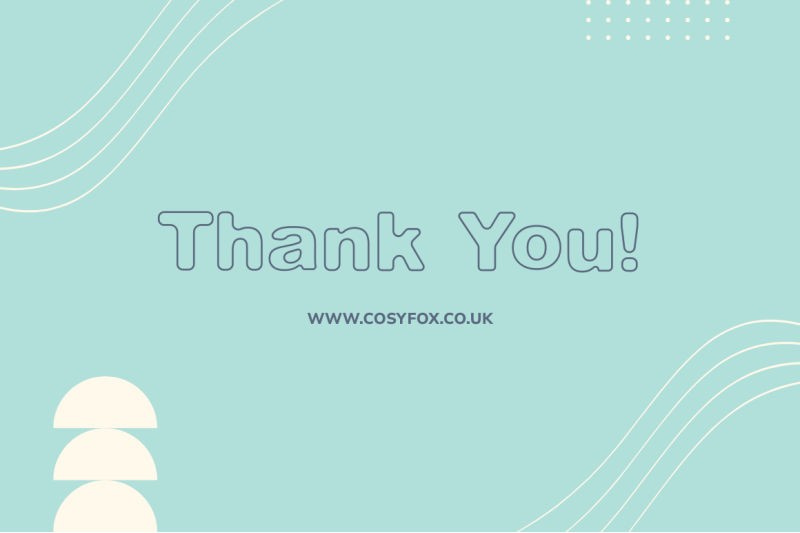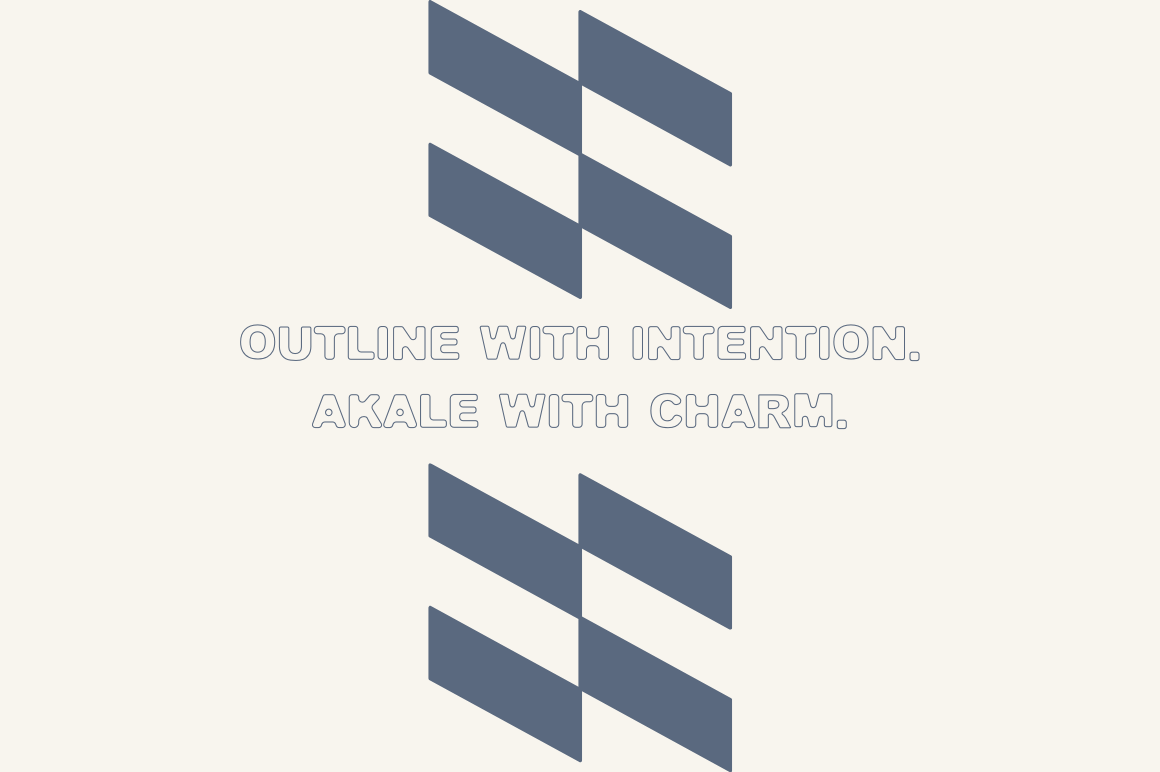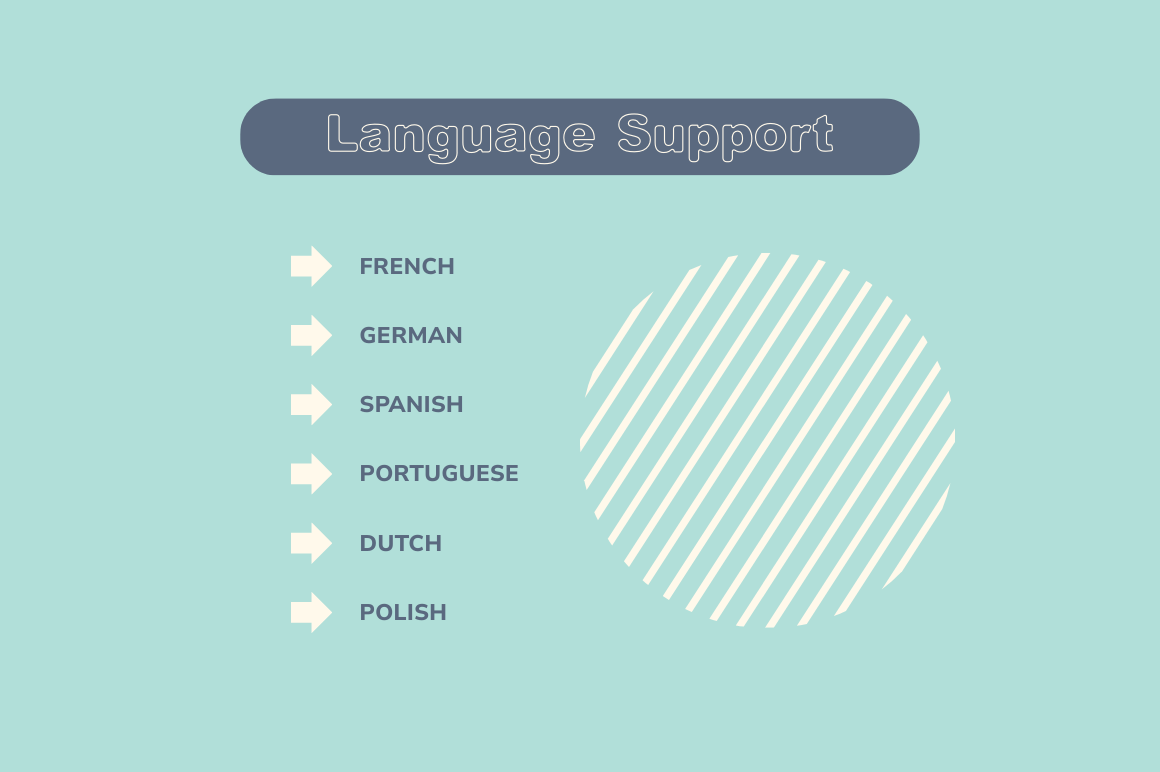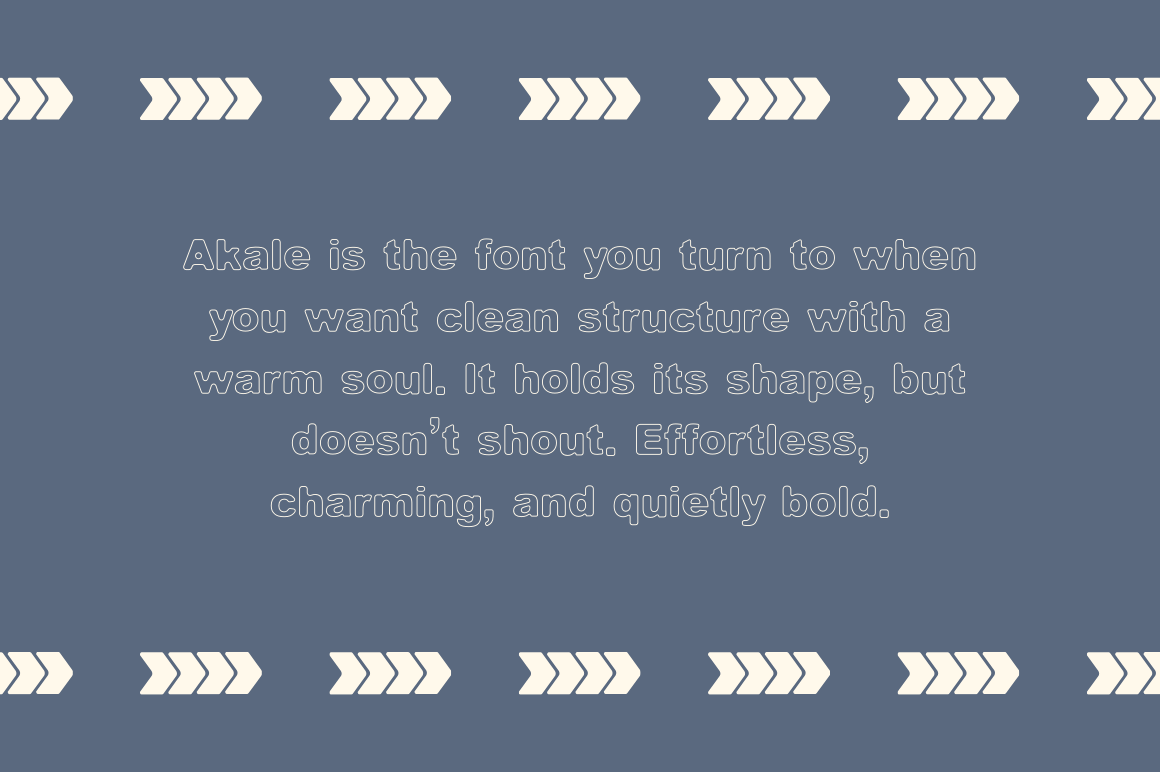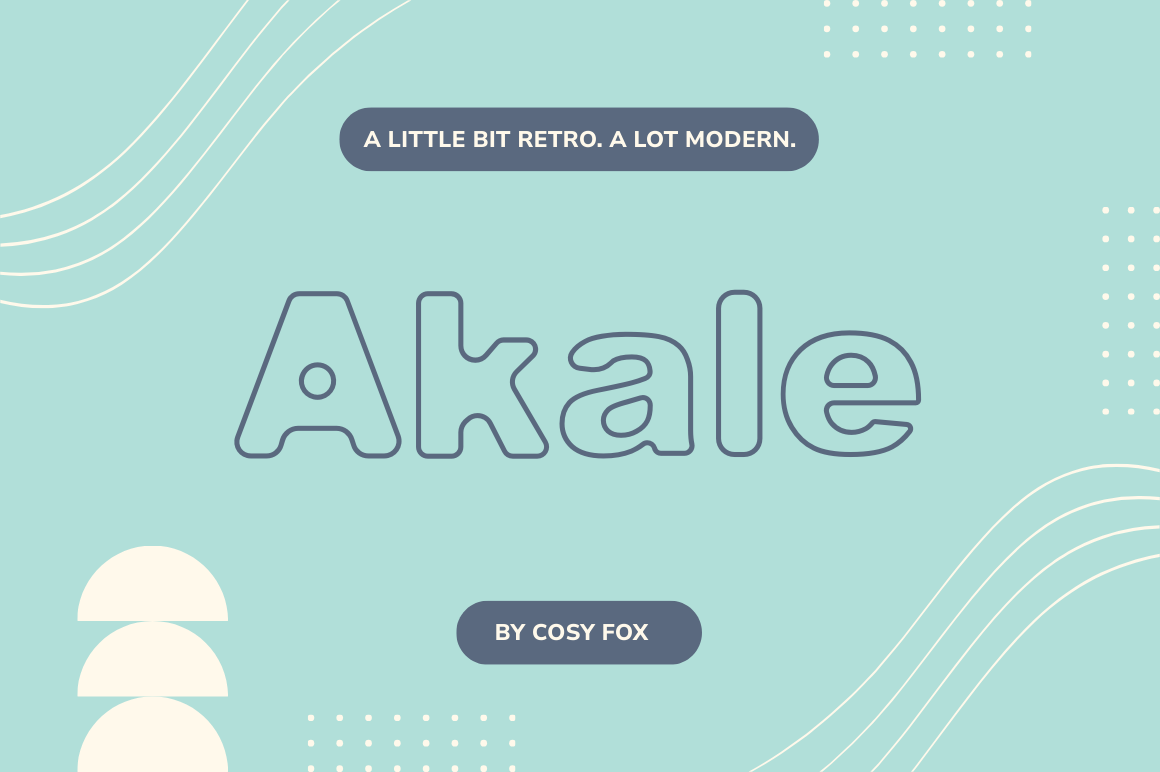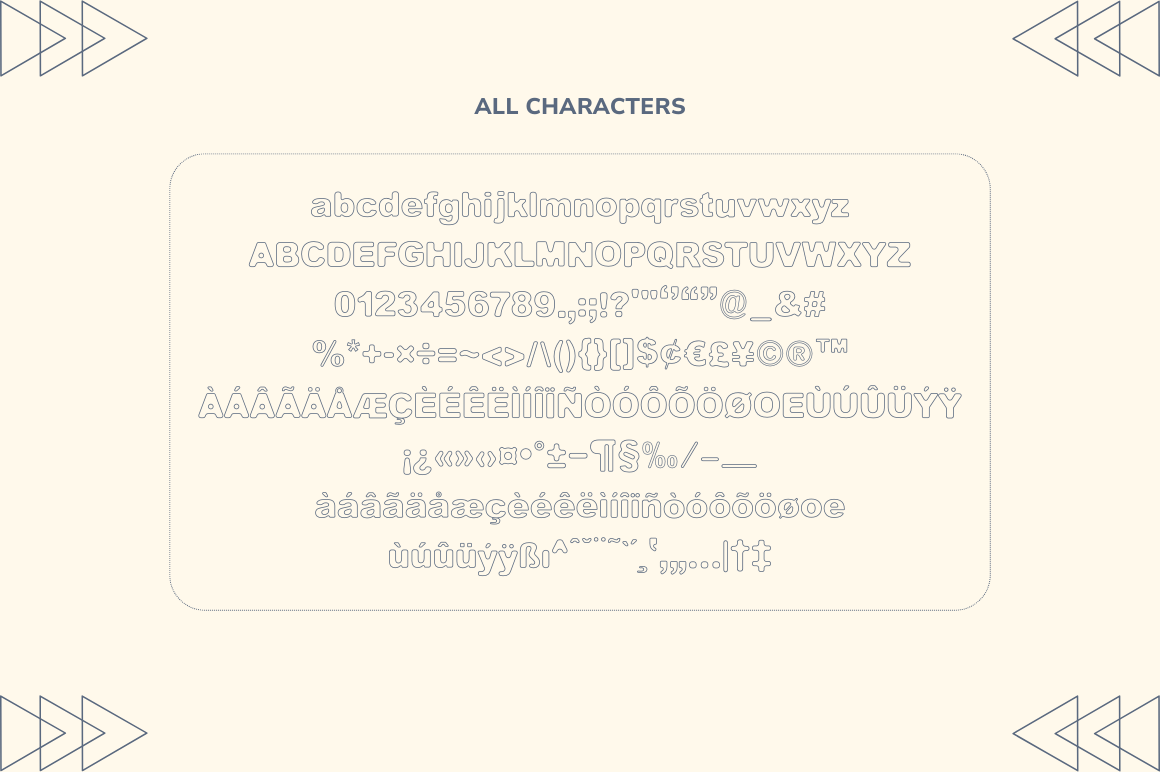
Akale Hand-Drawn Outline Font
Akale is a smooth, outline-style font that blends retro charm with modern confidence. Its rounded edges and perfectly balanced letterforms make it a go-to for logos, packaging, editorial layouts, and anywhere you need type that feels fresh but refined. Akale has a softness to it; clean, but not cold. With both uppercase and lowercase characters, this font gives you flexibility and style in equal measure. Fully compatible with Canva, Procreate, and your favourite design software. Language Support: French, German, Spanish, Italian and Portuguese. What You Get: Akale .OTF font file, How to Install PDF. Thank You! www.cosyfox.co.uk